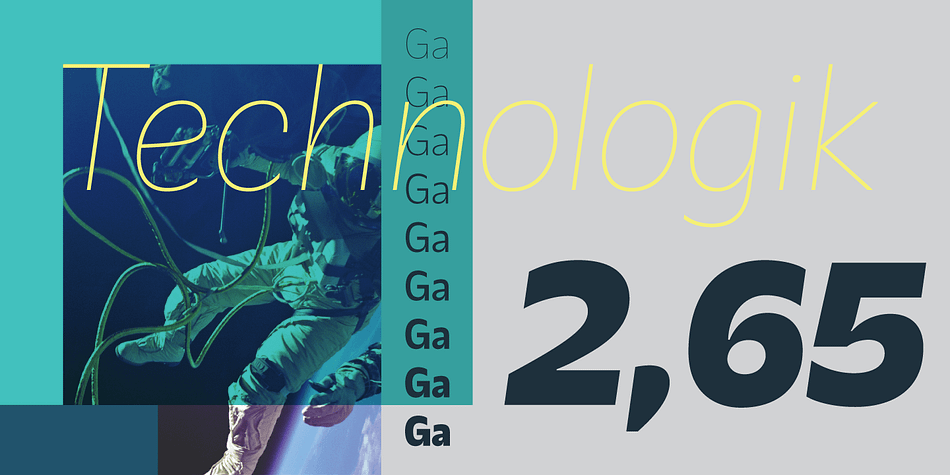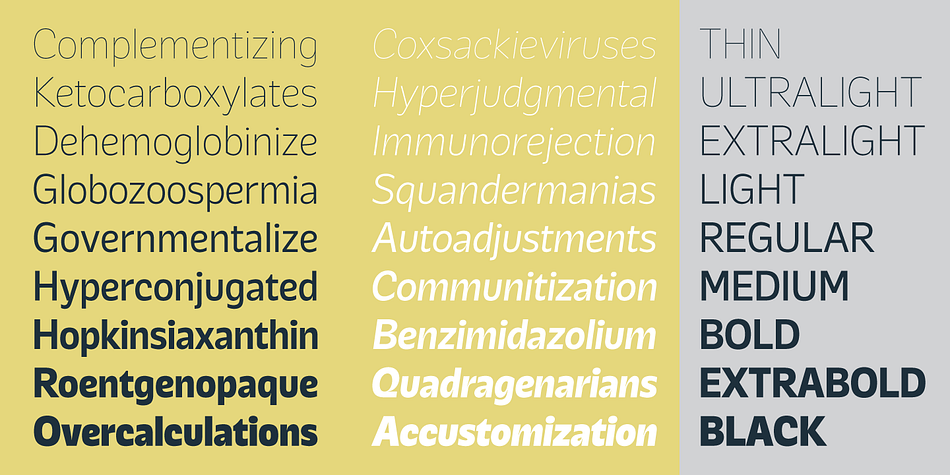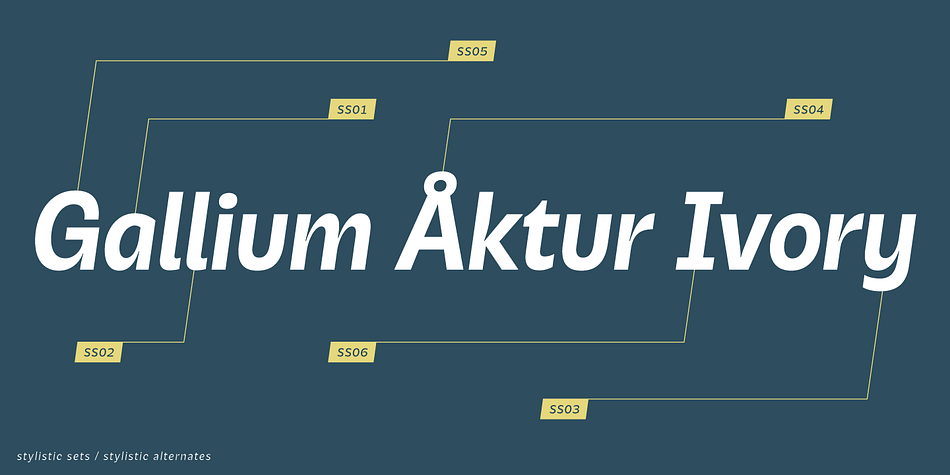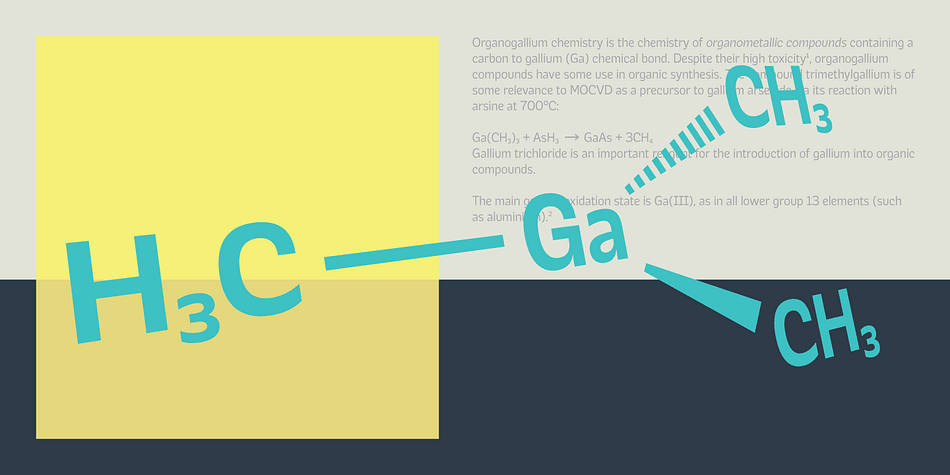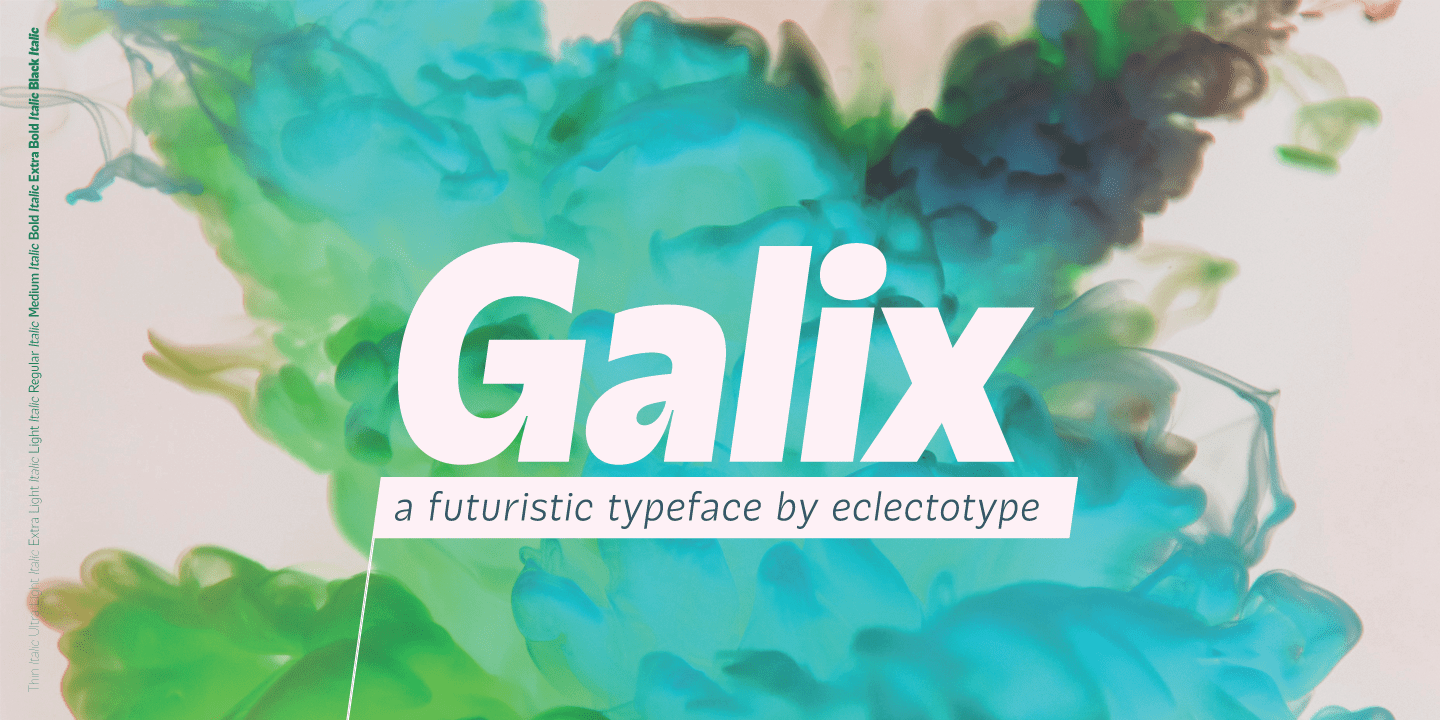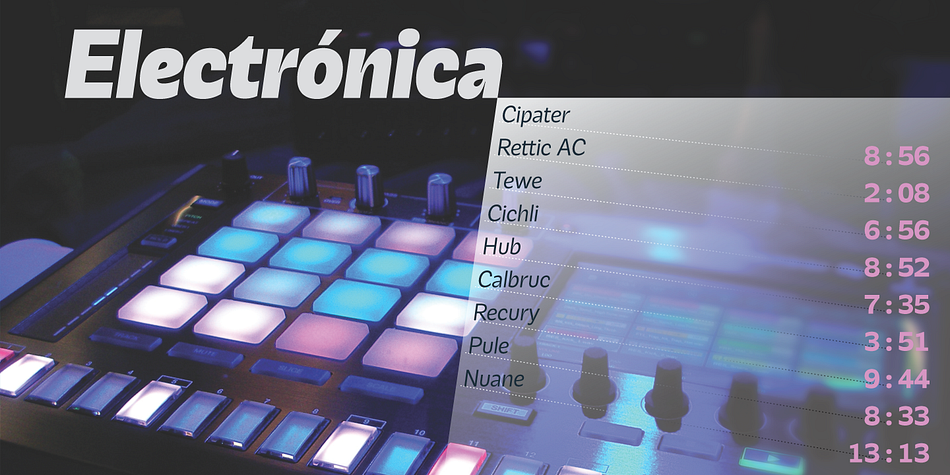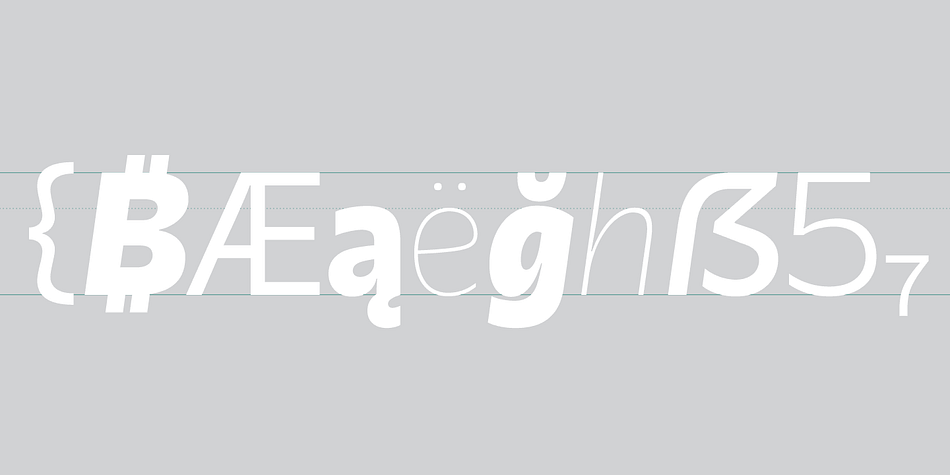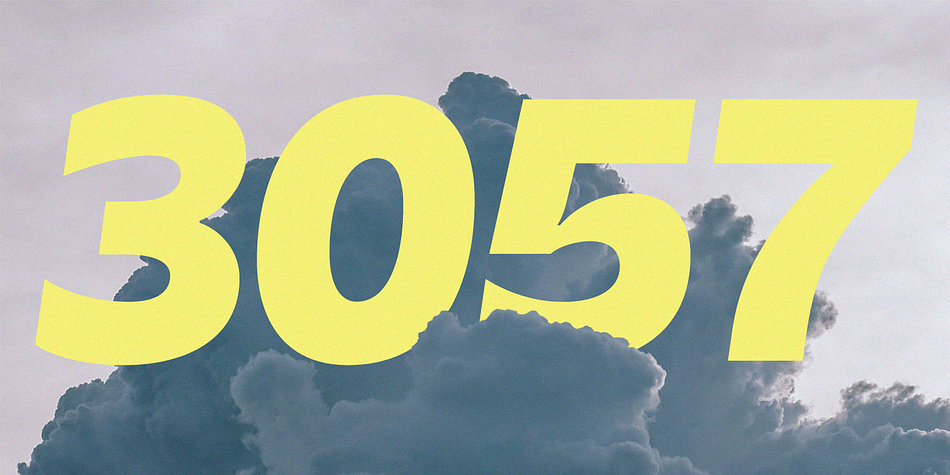
Designed by Dave Rowland, Galix is a sans serif font family. This typeface has eighteen styles and was published by Schizotype Fonts.
Galix is a technical sans designed to look futuristic without any of the retro appearance often found in this genre. It has a squarish, slightly condensed anatomy, and is characterized by thin joints and deep ink traps that add a sparkle to the otherwise monoline typeface. In the italic styles, these cuts are accentuated even more which creates a feeling of speed in the letterforms.
Galix is optimized for display typography (the ascender height is the same as the cap height, and the spacing is somewhat tight) but the middle weights are very readable at smaller sizes, where I’d recommend adding a little tracking. OpenType features include ft and tt ligatures, stylistic sets/alternates, automatic fractions, tabular, superscript and subscript figures, case sesitive forms.
Perfect for websites, apps, infographics, magazines and logotypes, Galix is technical but with a warmth and personality that is often missing from this genre.